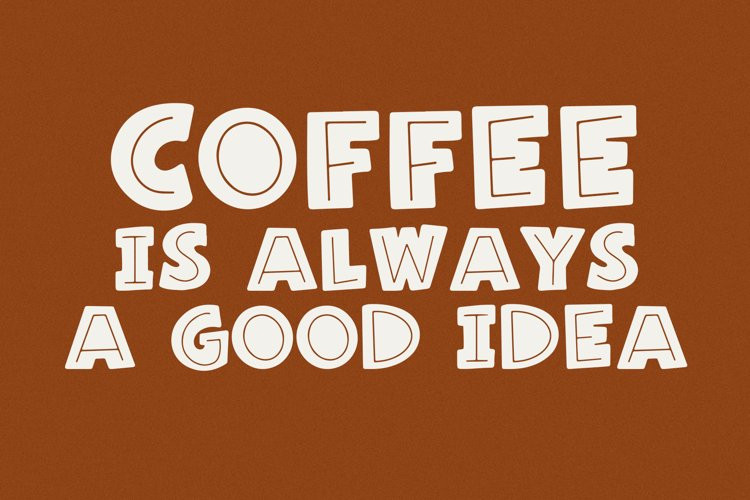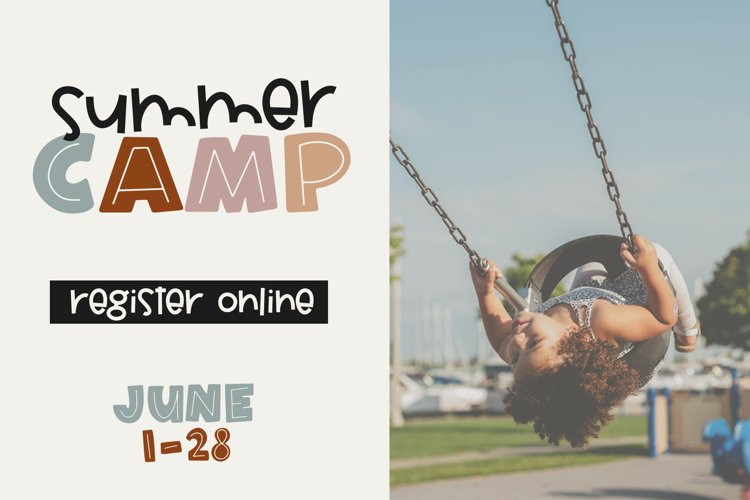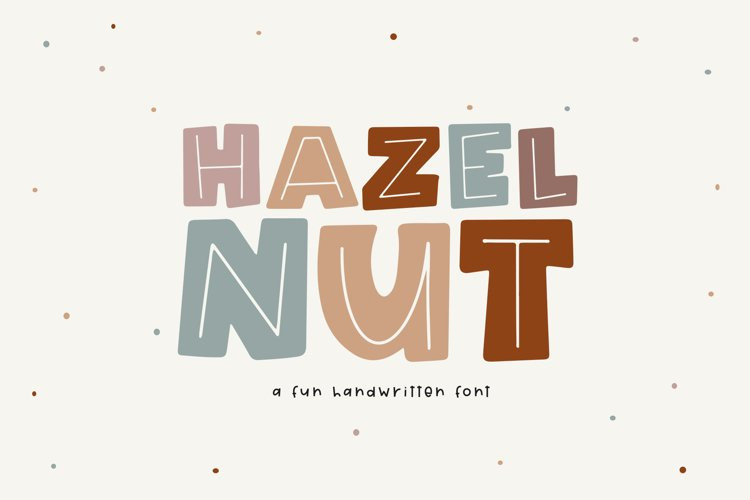
Hazelnut Font
Hazelnut is a handwritten font with big, fun letters. It is an ALL CAPS font.
This font is perfect for quotes, headings, blogs, logos, invitations and more!
This font does include accent characters.